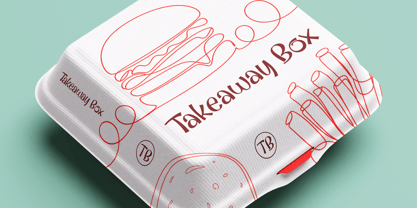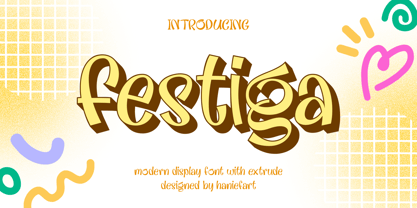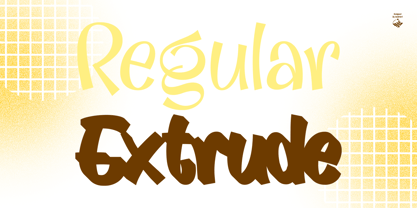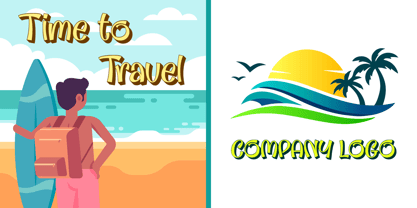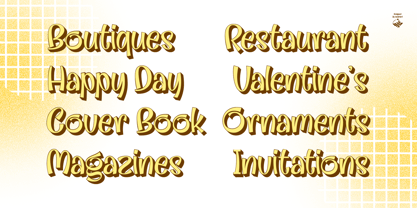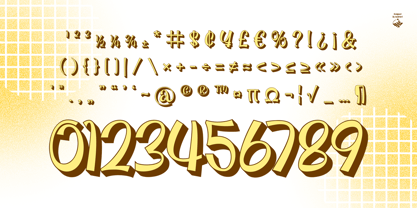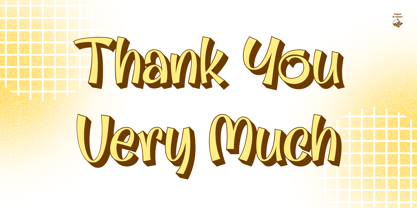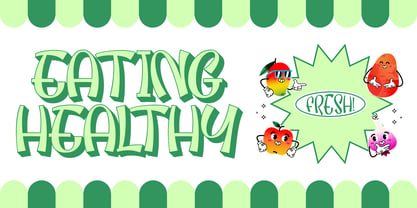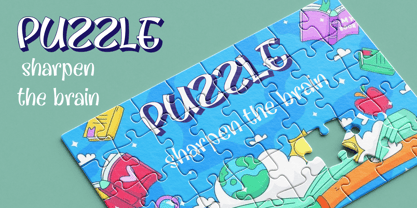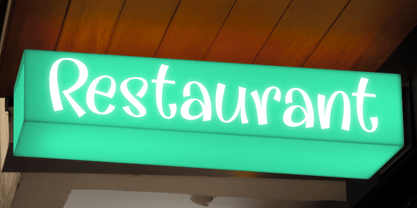
Festiga
por Haniefart
La familia tipográfica Festiga fue diseñada por Hanif Maulazi y publicada por Haniefart. Festiga contiene 2 estilos y opciones de paquete familiar. Más información sobre esta familia
Festiga's versatility shines across a variety of display contexts. It's a great choice for branding, exuding a cozy appeal on cafe menus or bakery packaging, and livening up artisan coffee labels. Furthermore, with its playful touch, it stands out in social media graphics, Instagram Stories, fun merchandise, and children's book titles. Festiga's key features include uppercase and lowercase letters, numbers and standard punctuation, and multilingual support. With Festiga by your side, every design you create will exude a modern and welcoming charm.